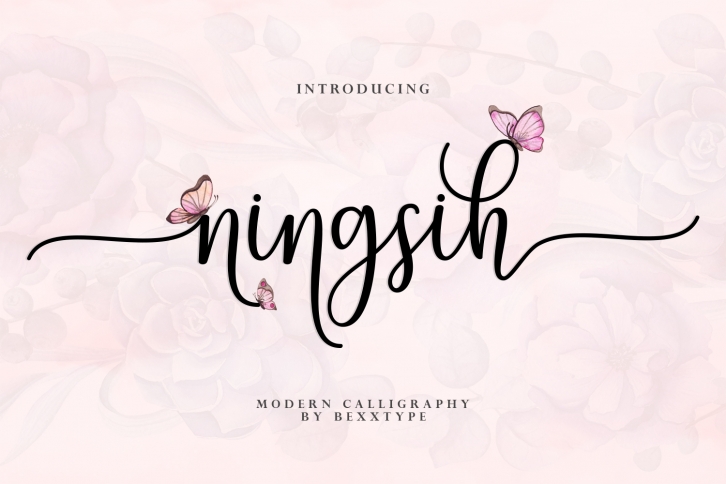
Ningsih Script is a trendy and unique font with an authentic style. It was designed by Bexxtype and it's a great choice for creative people who need such a font. It was released on August 22, 2019 and the file size is 11.84 MB. Ningsih Script will add an organic vibe to any design idea!